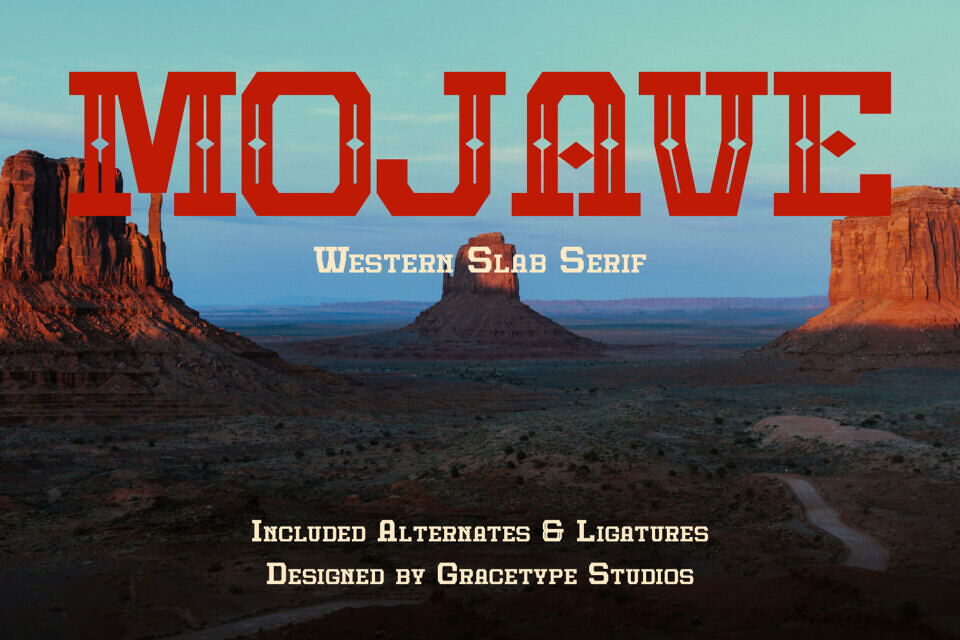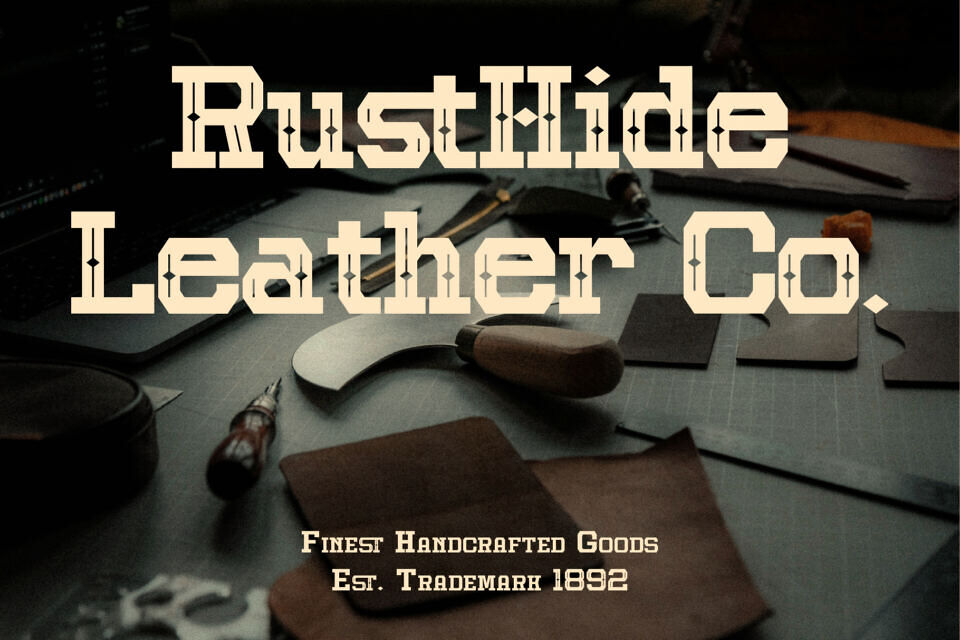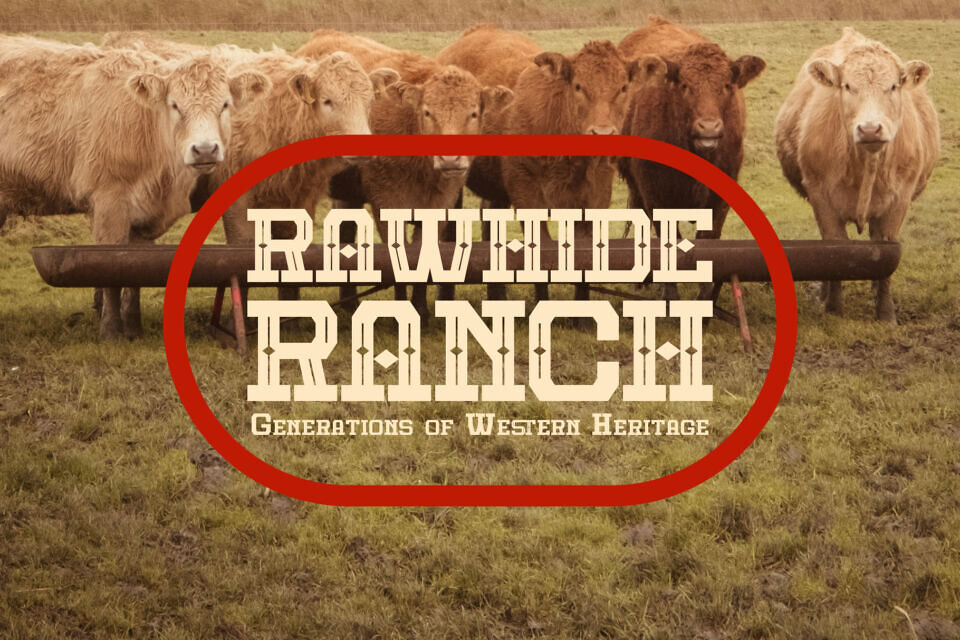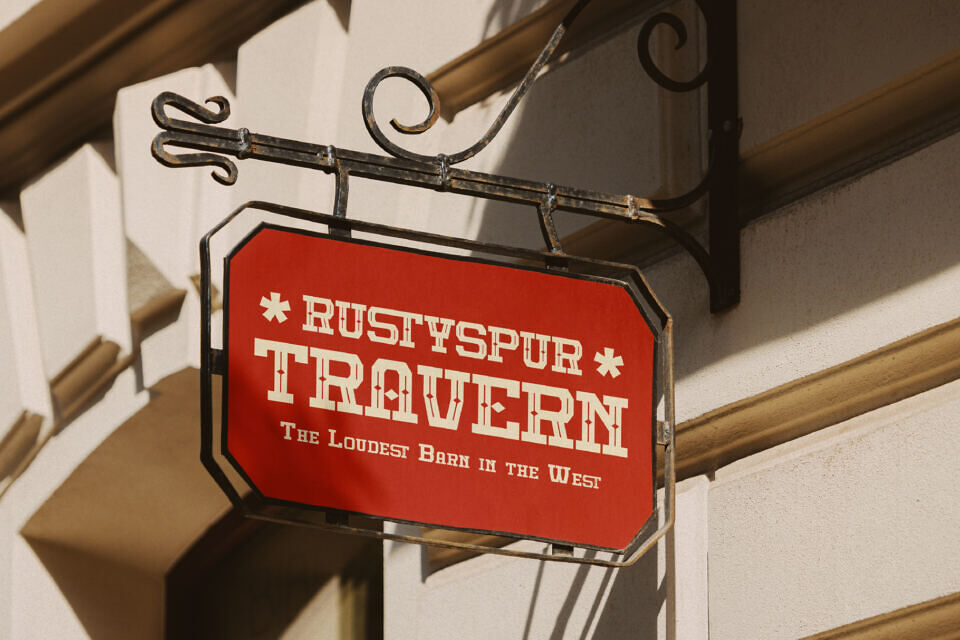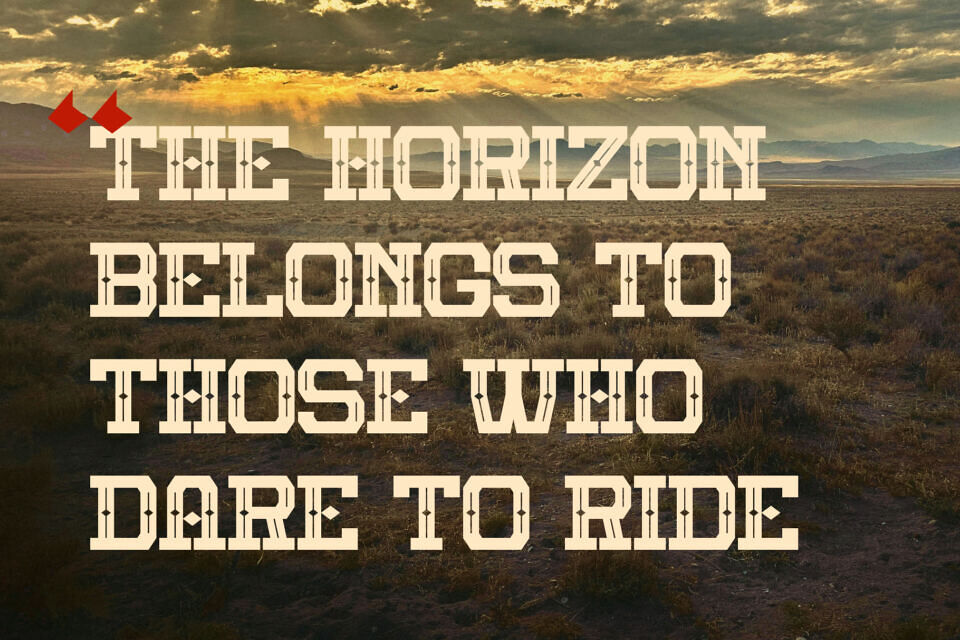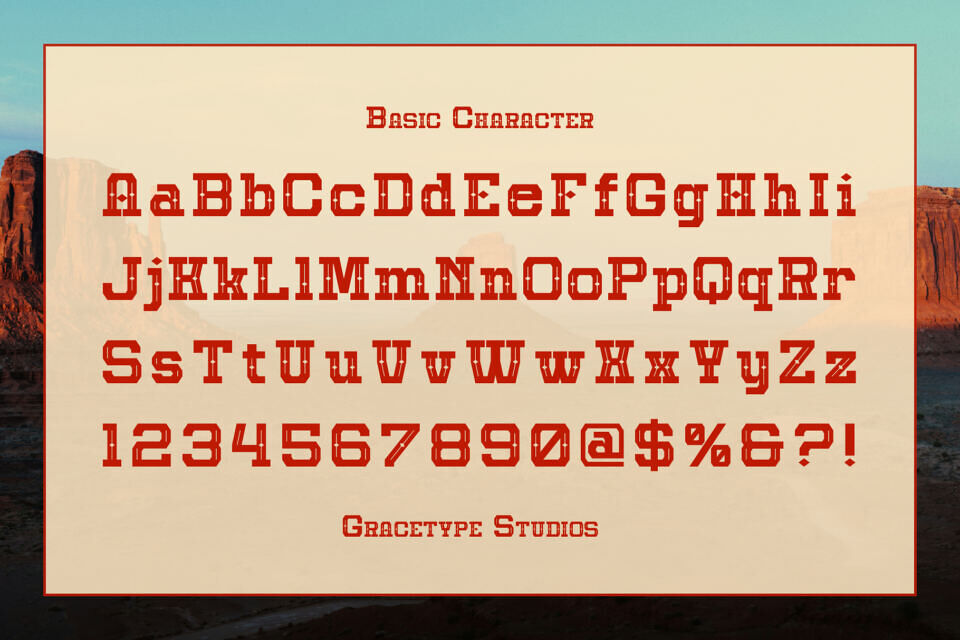
Mojave Font
Add a classic, bold touch to your design with Mojave, a sturdy slab serif font. Its extra-bold, all-caps letters feature strong lines and geometric shapes, making a lasting impact.
With its blend of vintage and modern styles, Mojave is perfect for branding, packaging, and headlines that require a strong, adventurous feel. It’s ideal for industries like craft beer, outdoor apparel, and automotive design, where a bold, authoritative voice is needed.